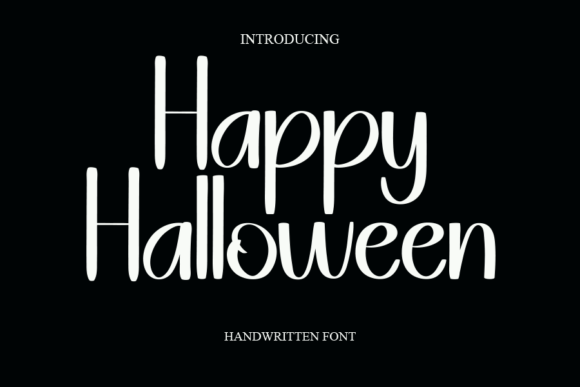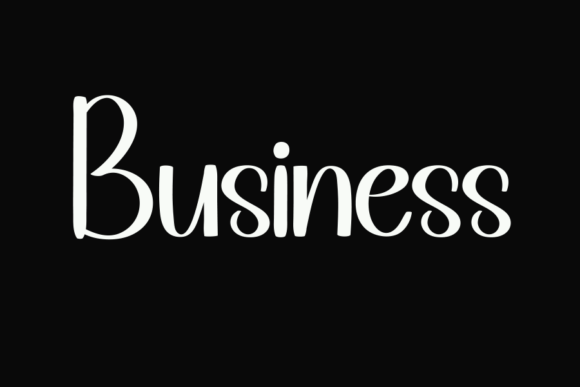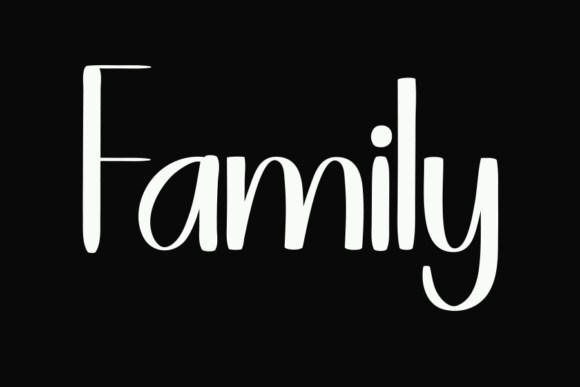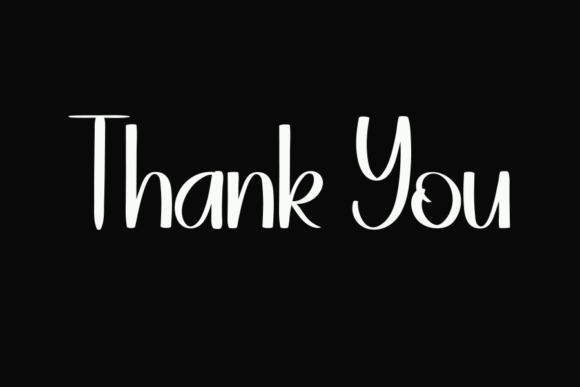
Happy Halloween Font
**Happy Halloween: A Fun and Friendly Handwritten Font for Every Occasion**
Happy Halloween is a font that embodies fun and friendliness, making it an ideal choice for a wide range of design applications. Whether you’re using it for crafting, digital design, presentations, or creating greeting cards, this font has the potential to become your favorite go-to font, no matter the occasion!
The charm of Happy Halloween lies in its fun and friendly handwritten characters. Each letter is designed to exude a sense of playfulness and authenticity. Whether you’re working on a creative craft project or designing a digital presentation, Happy Halloween adds a touch of lightheartedness that enhances your work.
This font’s versatility ensures it can adapt to various design contexts. It can be used to create engaging digital designs, infuse a sense of fun into presentations, or add a friendly touch to your greeting cards. Its fun and friendly appearance ensures your designs are inviting and visually appealing.
In summary, Happy Halloween is more than just a font; it’s a source of fun and friendliness that enhances your design projects. Its playful handwritten letters make it the perfect choice for infusing a sense of playfulness and approachability into your work. With Happy Halloween, your creative projects will shine with a fun and friendly charm, especially during the spooky season! Choose Happy Halloween, and let your designs captivate with its delightful and inviting presence.